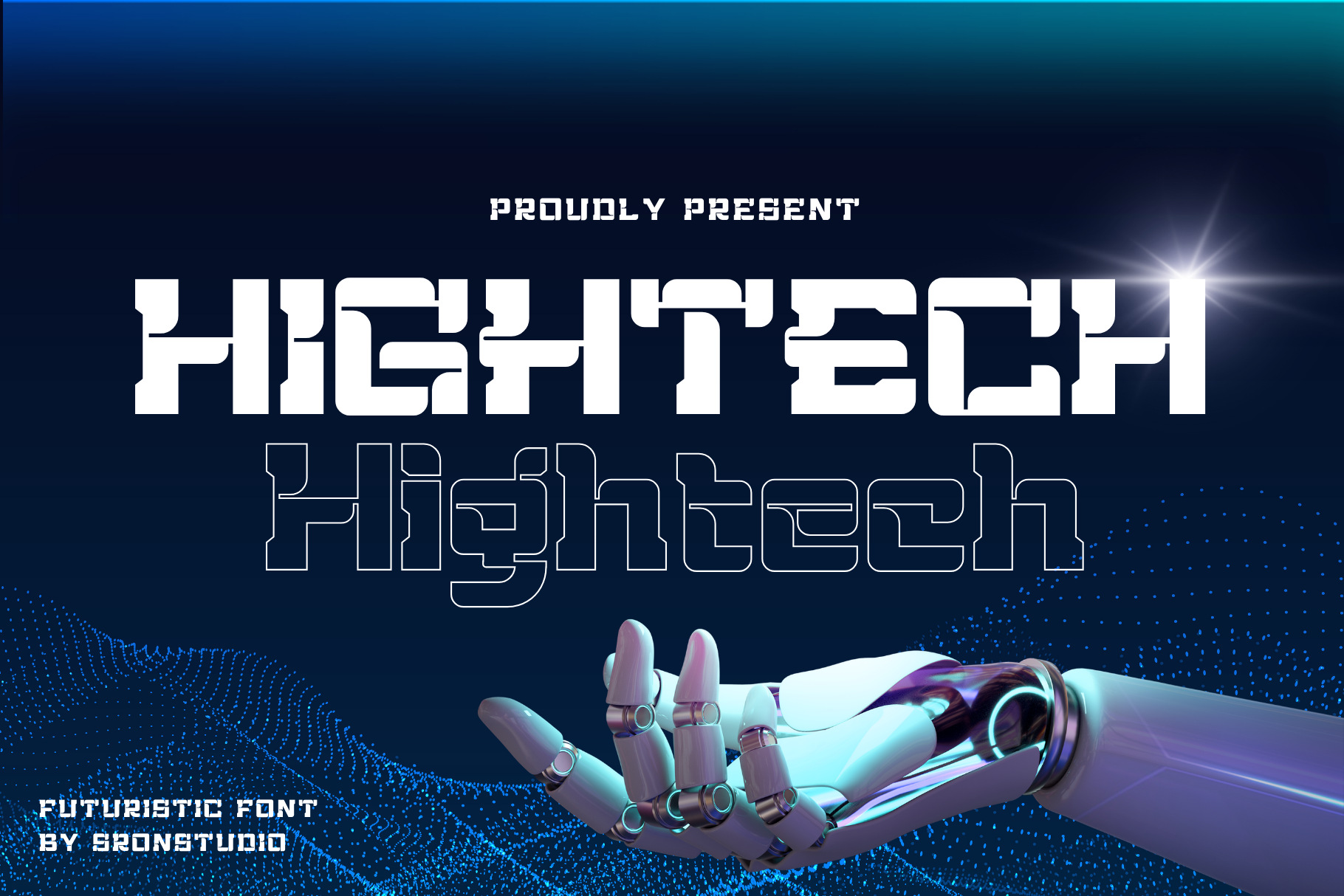
Hightech Font
Hightech is a font that epitomizes the future of technology. With its sleek, streamlined letterforms and cutting-edge design, it radiates a sense of innovation and progress. Ideal for tech-related branding, interfaces, or any project that demands a futuristic aesthetic, “Hightech” adds a touch of high-tech sophistication to your designs.
- Uppercase and lowercase letters
- Alternate Glyph
- Multilingual, numerals, and punctuation